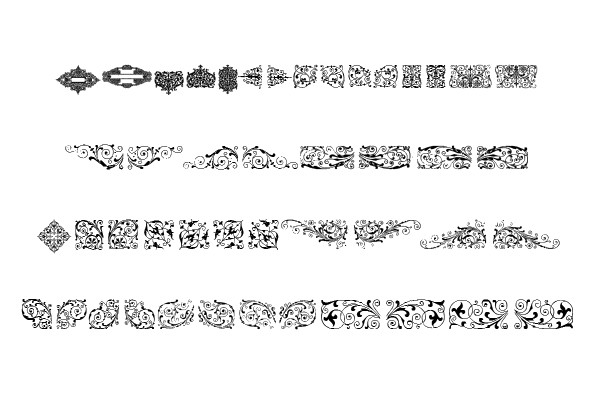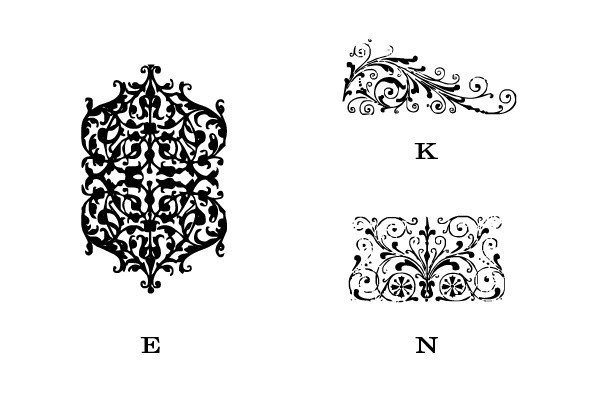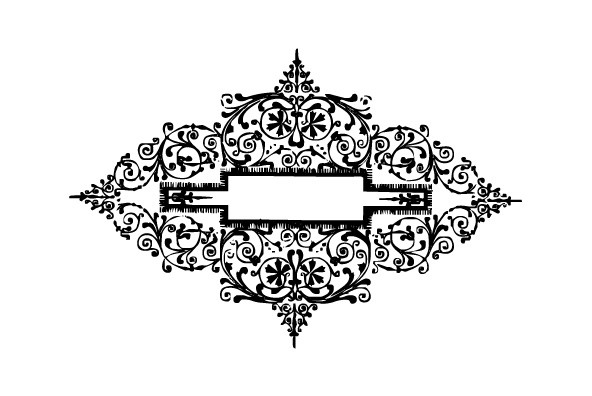
Gans Neoclassic Fleurons
A dingbat/decorative display font featuring many different styles of flourishes and ornaments. Great for a vintage antique feel.